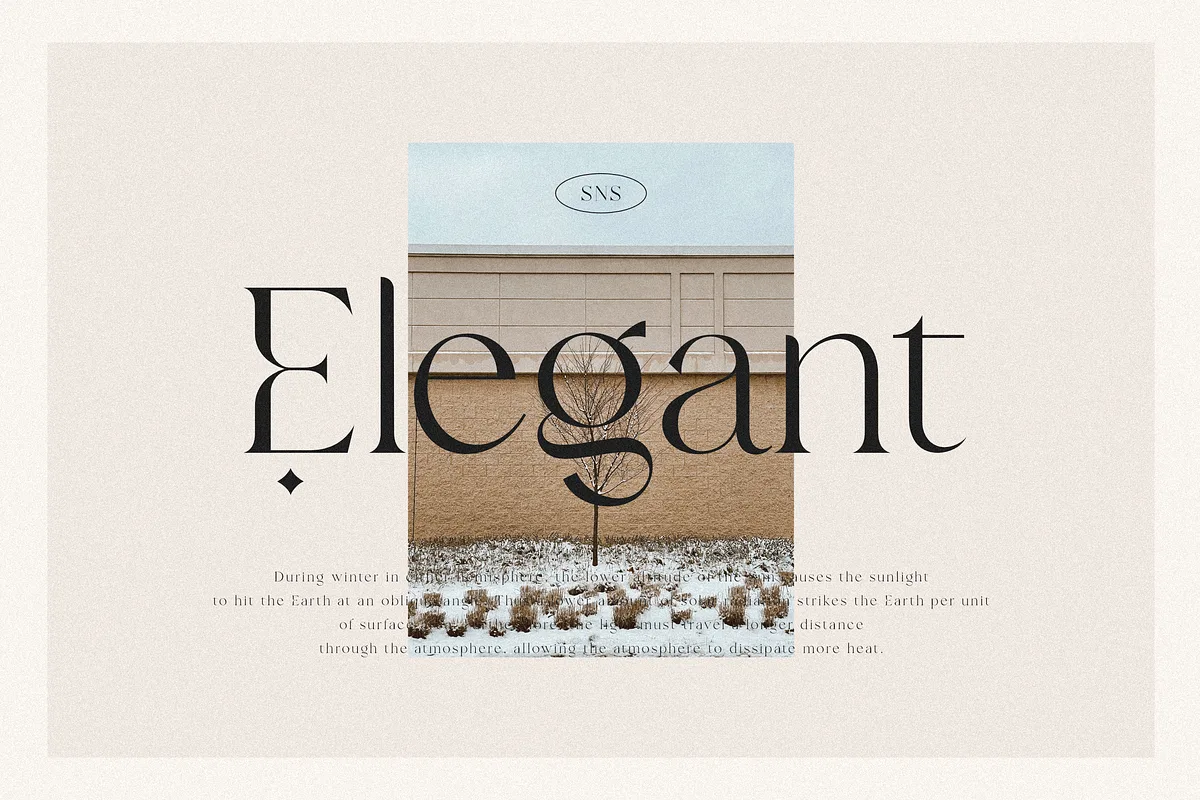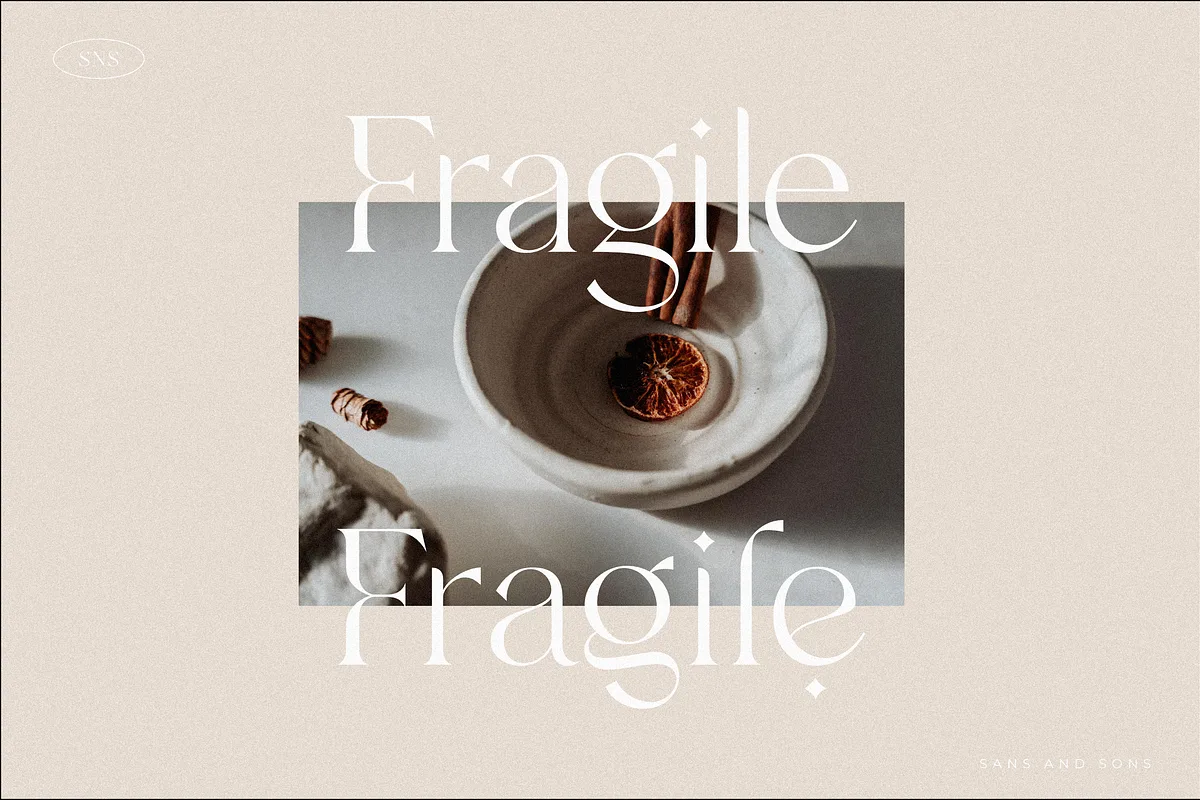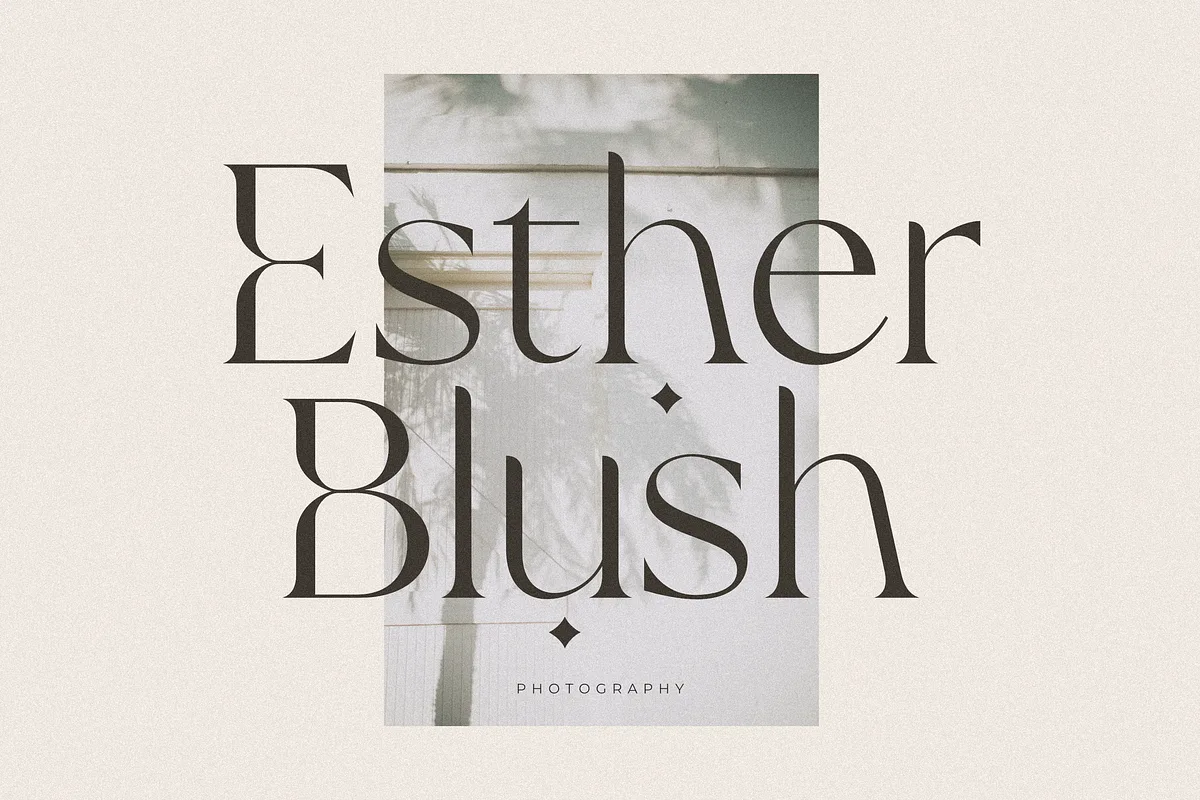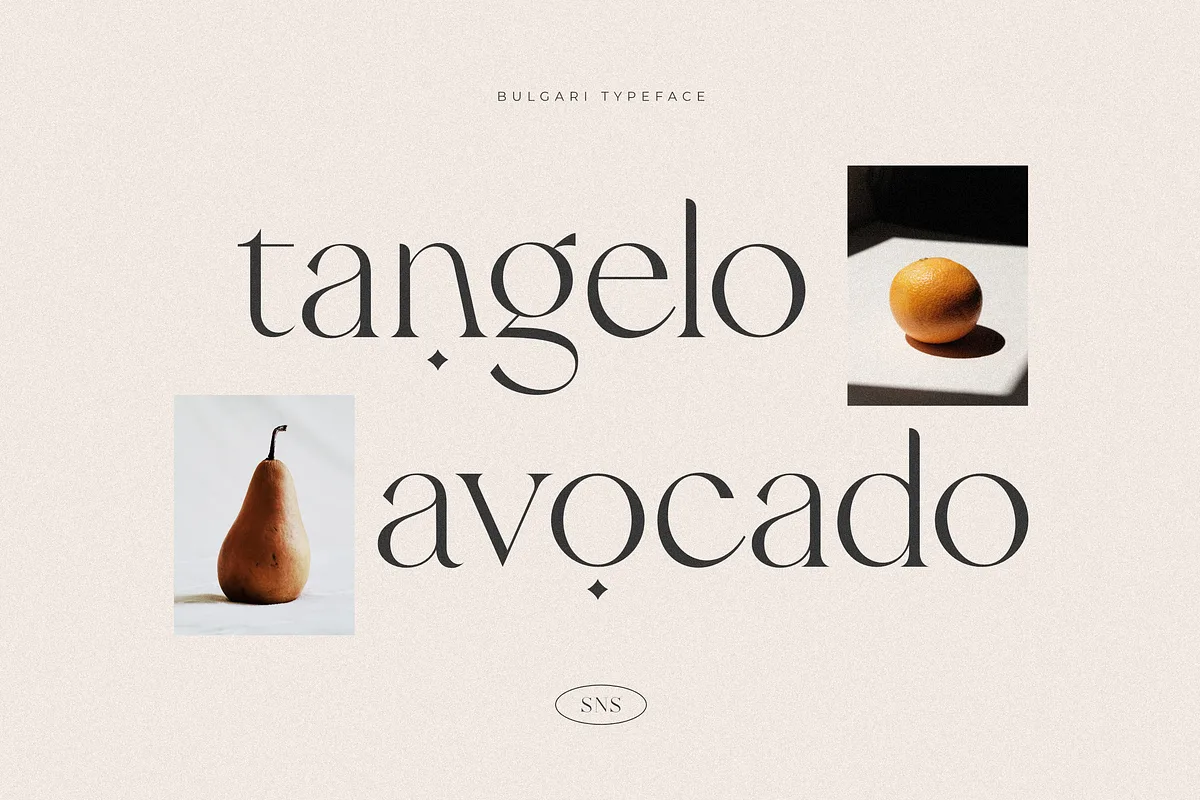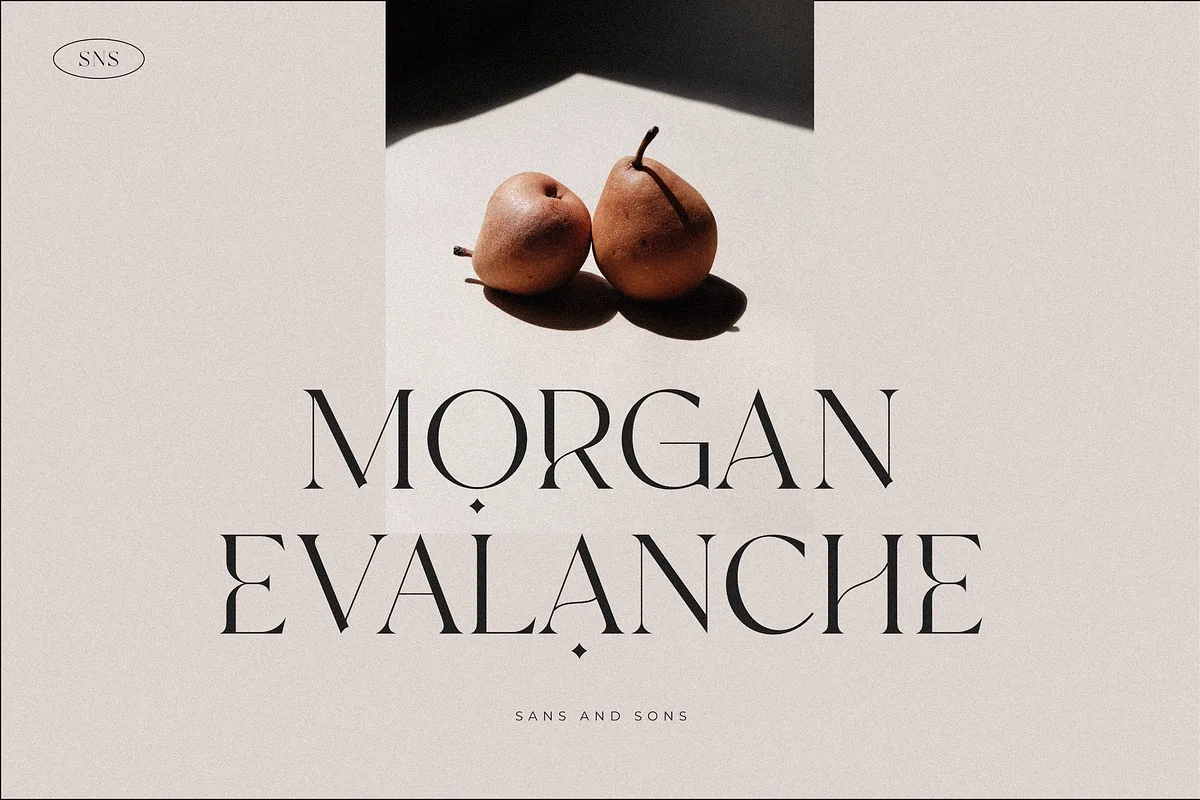
Bulgari is a modern serif font with an elegant style. Every letter has a unique and beautiful touch. It is perfect for branding, logos, invitations, master heads, and more.